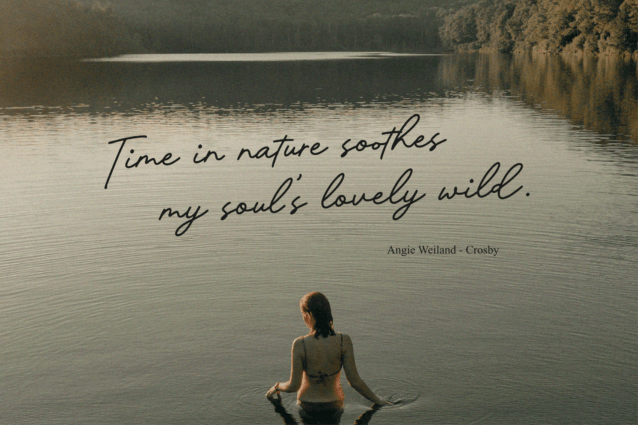
Bentleycraft Font
Bentleycraft Font is a stylish and incredibly elegant script font. It looks stunning on wedding invitations, thank you cards, quotes, greeting cards, logos, business cards and every other design which needs a handwritten touch.